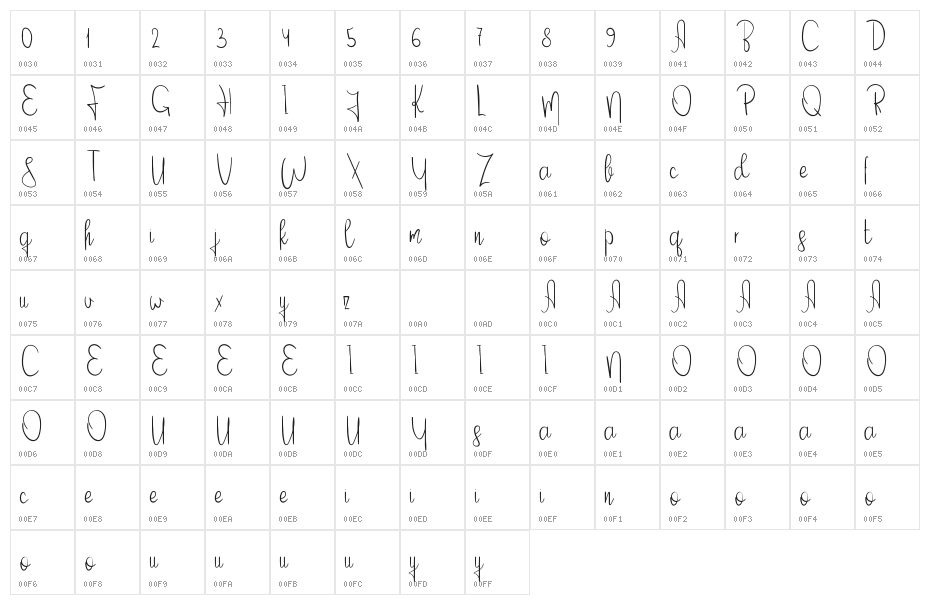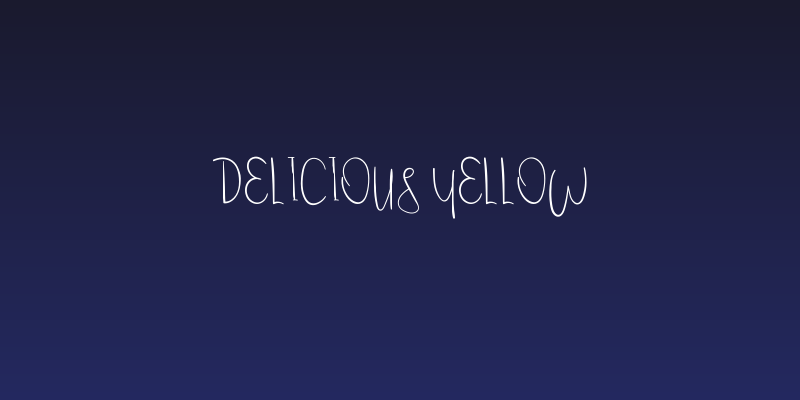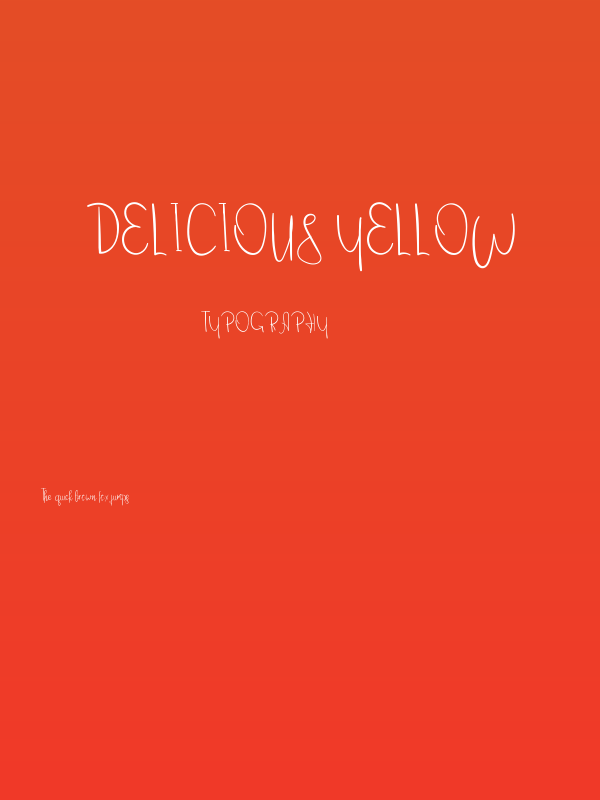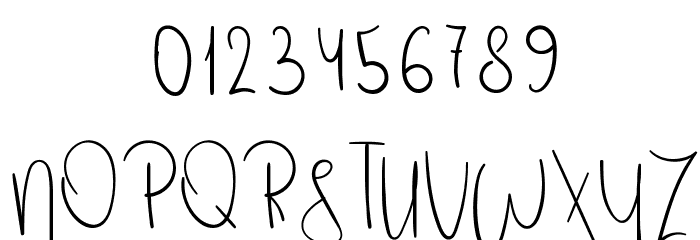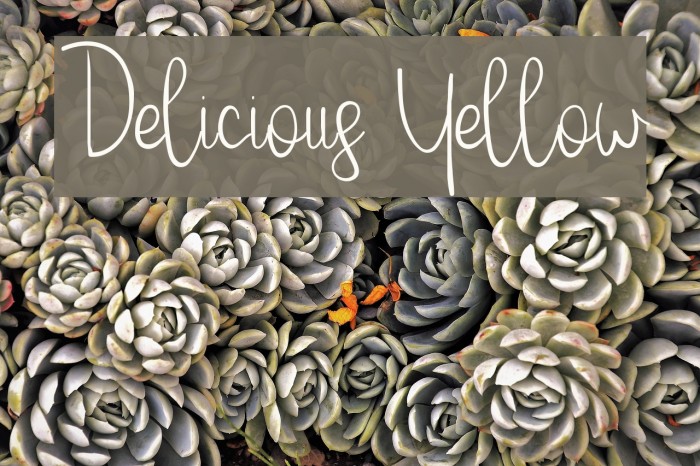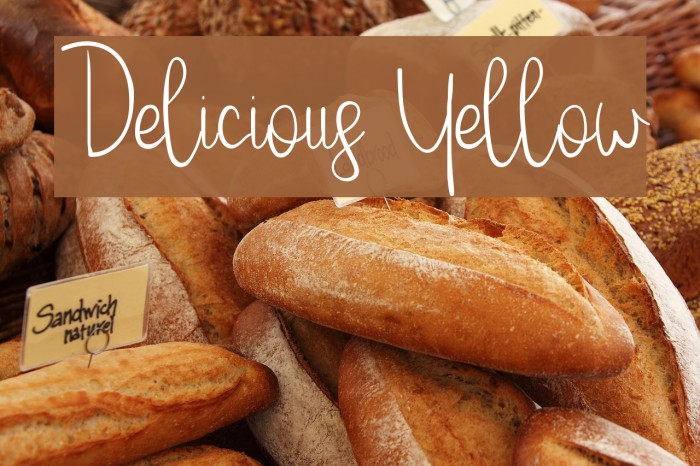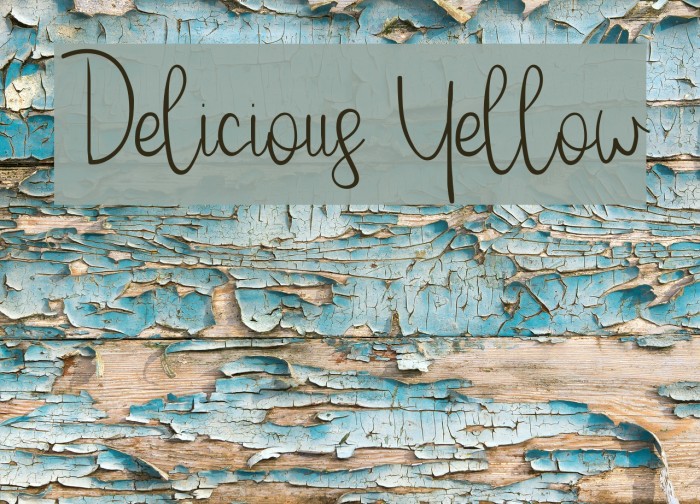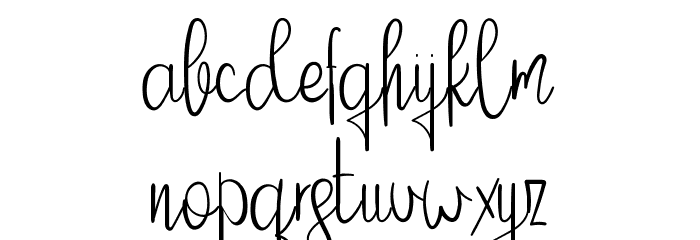
Delicious Yellow Font
Delicious Yellow Description
This font features a playful and whimsical design, characterized by its tall, slender letterforms and unique, artistic flair. The uppercase letters exhibit a distinctive style with elongated strokes and creative curves, giving them a lively and dynamic appearance. The lowercase letters maintain a consistent flow with a slightly more casual script-like quality, adding to the font's charm. Numbers are crafted with the same attention to detail, ensuring a cohesive look throughout. Special characters are thoughtfully integrated, enhancing the font's versatility. Overall, this font exudes a sense of creativity and fun, making it suitable for a variety of design projects.
| Overall Style | Whimsical, Playful |
| Proposed Projects | Ideal for greeting cards, children's books, playful branding, and creative invitations. |